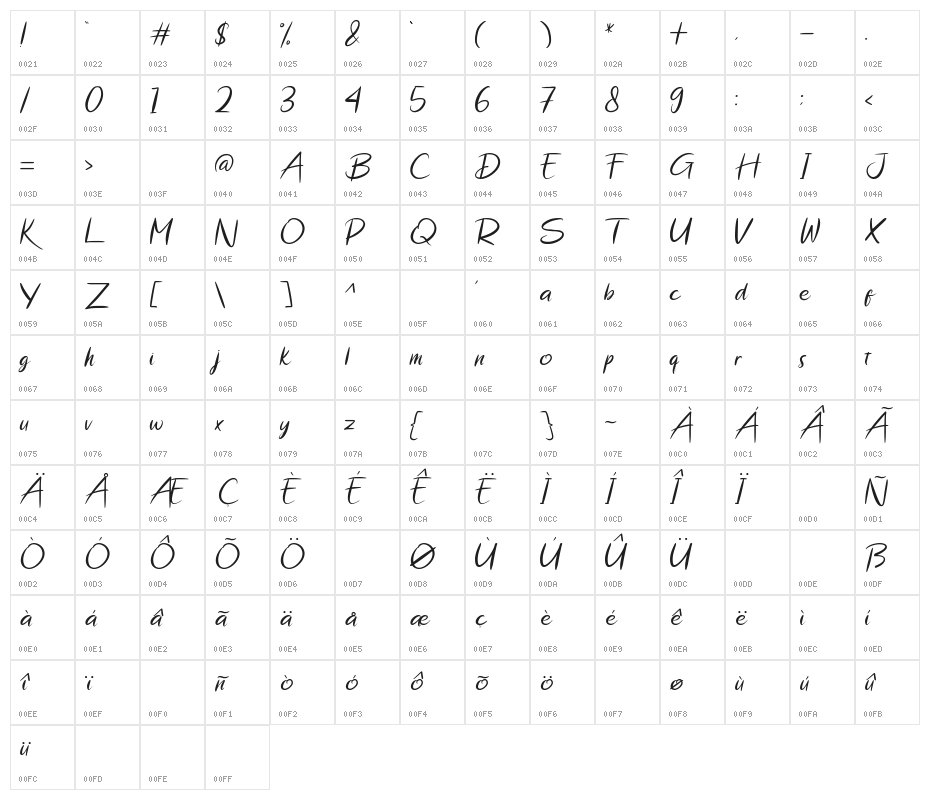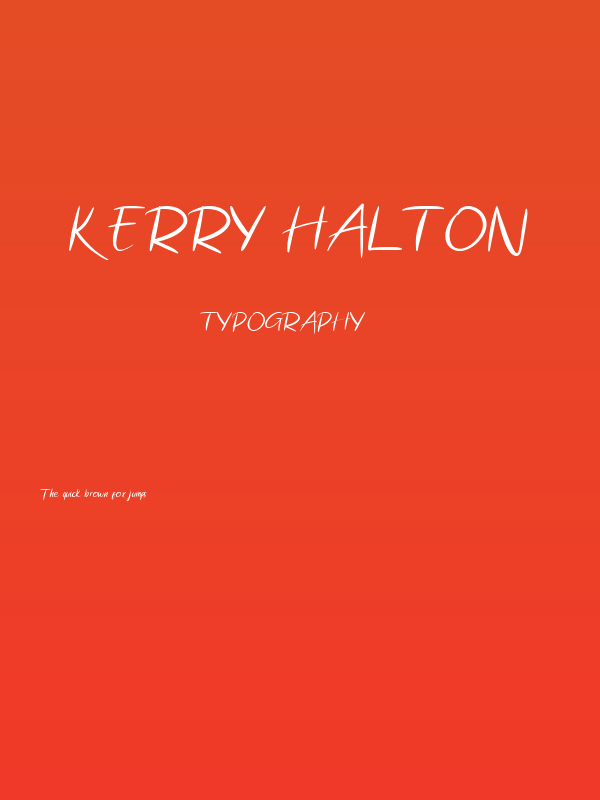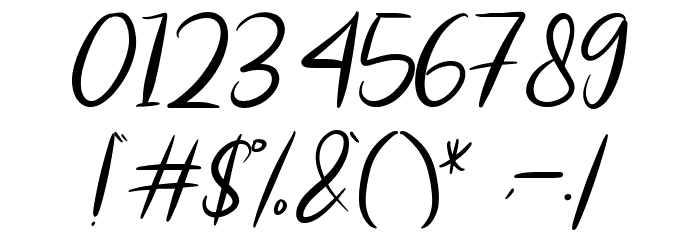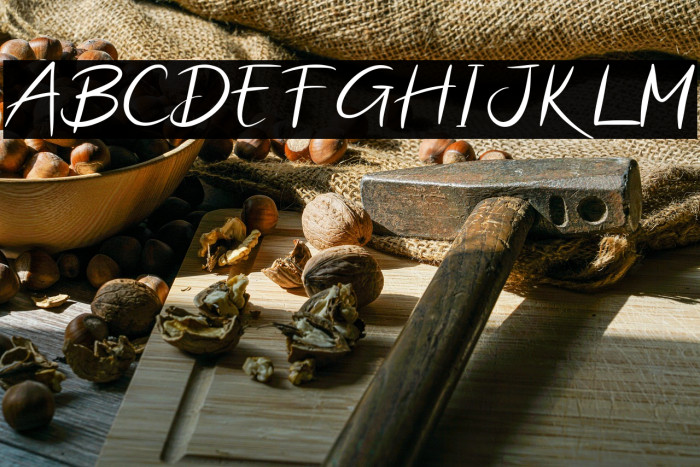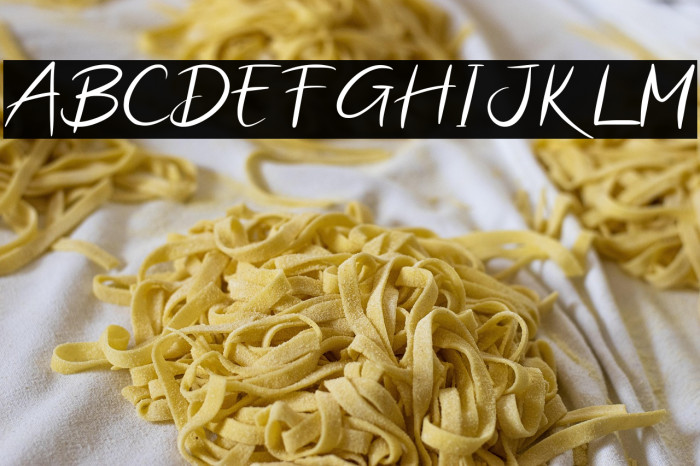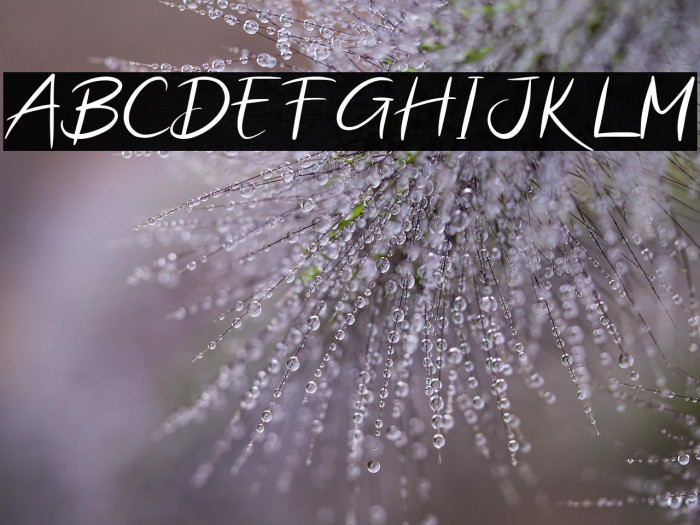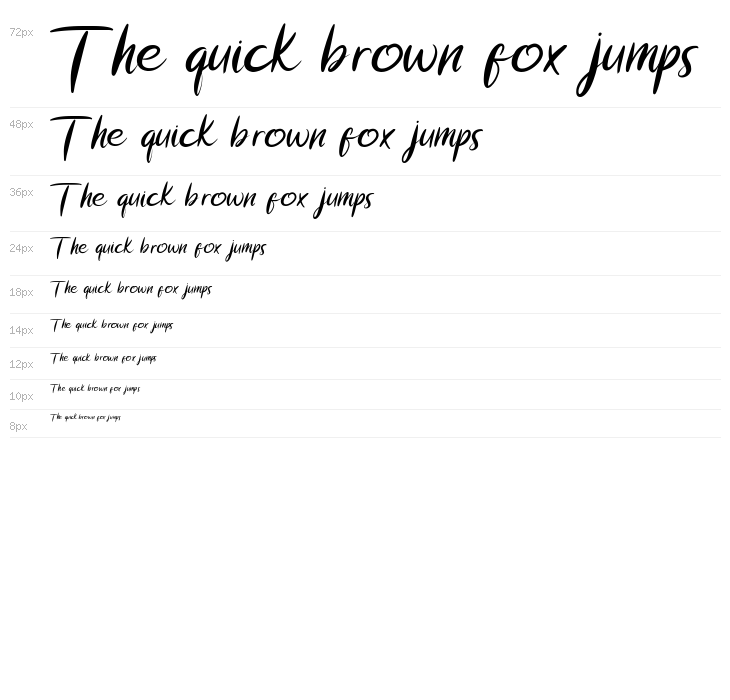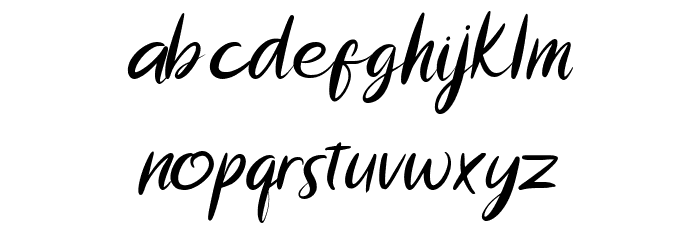
Kerry Halton Font
Kerry Halton Description
This font features a dynamic and fluid script style, characterized by its elegant and flowing letterforms. The uppercase letters exhibit a graceful, slightly slanted appearance, while the lowercase letters maintain a consistent fluidity, enhancing readability. The numerals are designed with a similar flair, ensuring they complement the overall aesthetic. Special characters are thoughtfully integrated, maintaining the font's cohesive style. The strokes vary in thickness, adding a touch of sophistication and movement to the text.